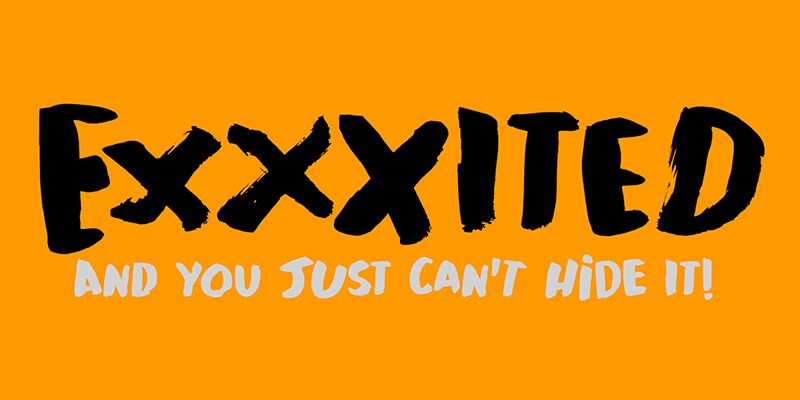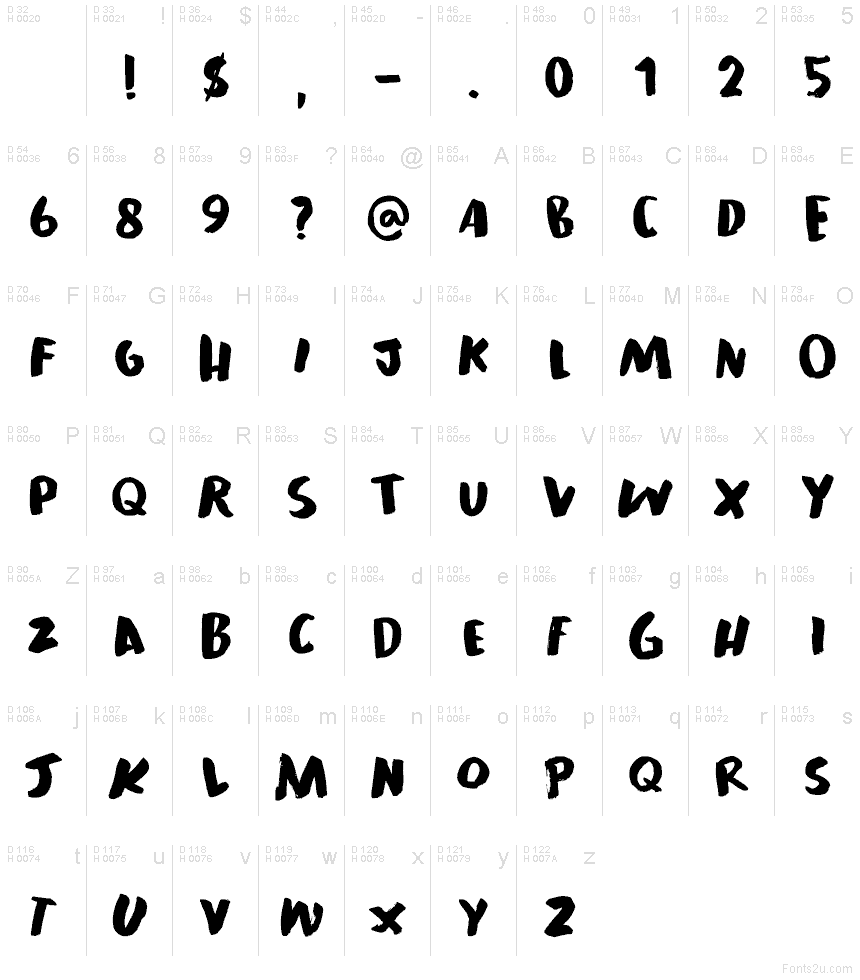
Exxxited DEMO Regular
Exxxited font from Hanoded is a brush typography design with a bold weight and an energetic feel. Styles like this one usually have an expressive tone and are mainly used for conveying emotions in games, apps, posters, brochures… Words with grunge textures as seen in Exxxited can easily make any title or paragraph stand out.
Try this free brush font in albums covers, advertisements, logotypes for restaurants, shop window displays, magazine articles about arts and crafts or even nature. It can be useful for tourist campaigns about destinations having green landscapes such as hills, forests and more!